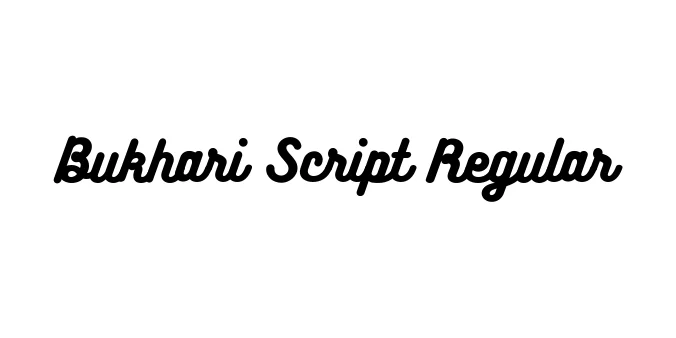
Bukhari Script Regular
Designed by Mikhel Ibrahim (Mikrojihad)
Bukhari Script is a bold, monoline cursive typeface that captures the essence of retro hand-lettering and mid-century signage. Developed by the Indonesian studio Mikrojihad, the font is characterized by its uniform stroke weight and fluid, rhythmic connections between letters. This consistency provides a clean and modern look while still maintaining a strong sense of nostalgic charm, making it highly effective for display purposes where readability and personality are both required.
Beyond its basic structure, Bukhari Script is loaded with OpenType features, including various ligatures, stylistic alternates, and swashes. These options allow designers to create customized typographic arrangements that mimic authentic calligraphy. Because of its weight and versatility, it has become a staple for designers working on projects ranging from corporate branding to merchandise design, offering a professional yet friendly aesthetic that stands out in both digital and print environments.
Bukhari Script Regular Best Uses
Perfect for creating distinctive brand identities with a retro feel.
Ideal for t-shirt graphics, hats, and vintage-style sportswear.
Effective for storefront signs and window graphics due to its bold nature.
Great for promotional banners and social media assets that need to pop.